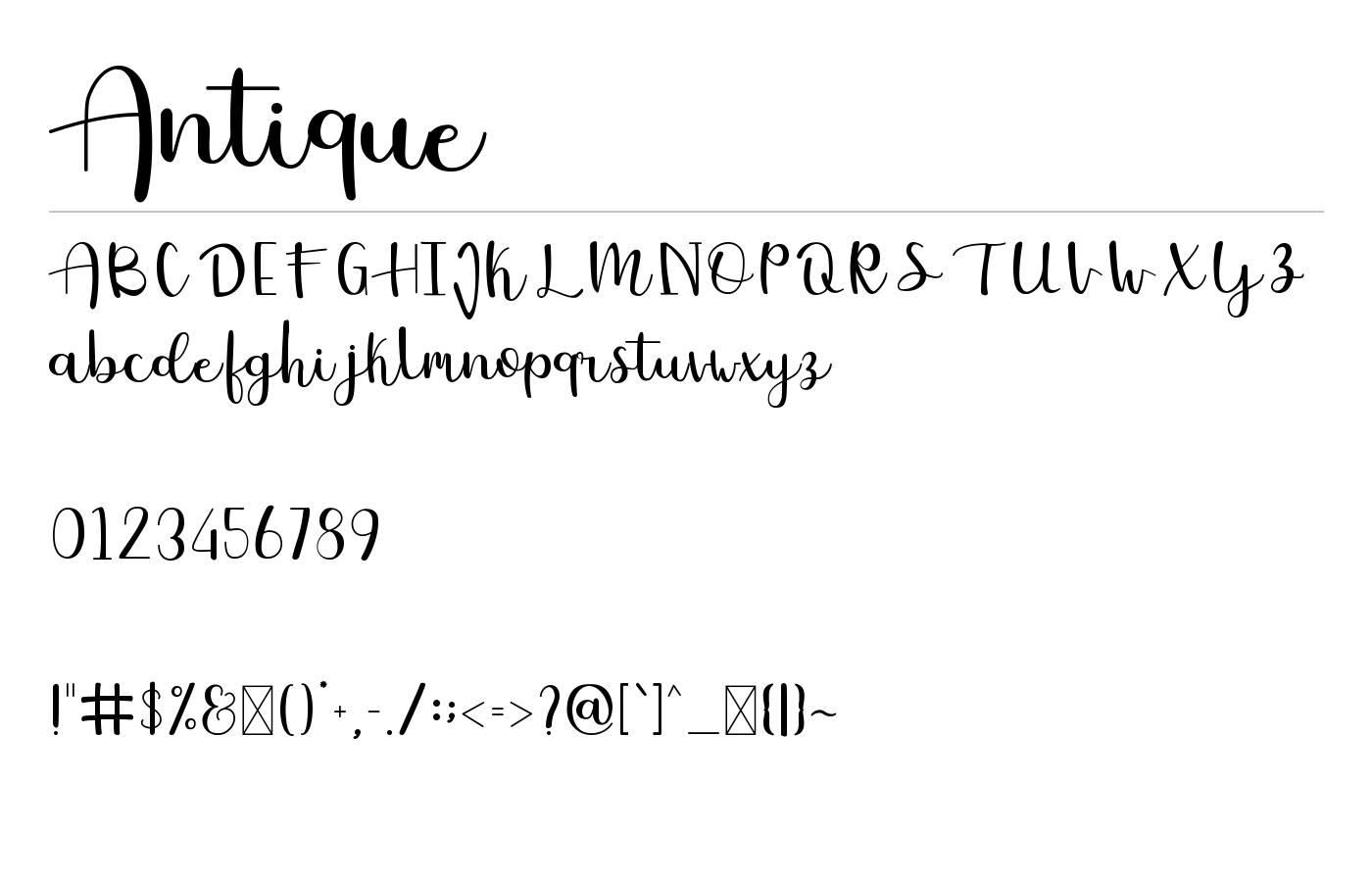
Antique Font is a whimsical handwritten script with a light and airy feel, featuring tall, narrow letterforms and delicate strokes. Its playful curves and subtle variations make it perfect for creative projects, invitations, and branding that seek a friendly yet elegant touch. This font works well in headlines and decorative text where a unique, personal style is desired.
Antique Font
About Antique Font